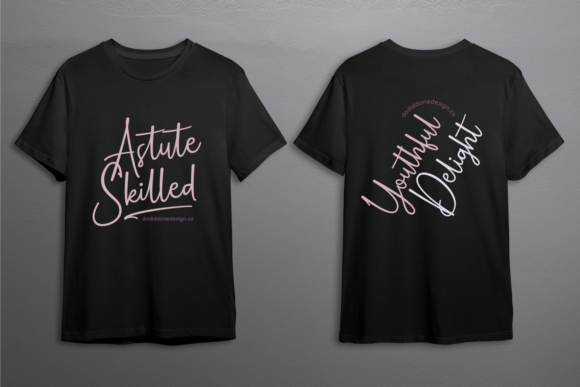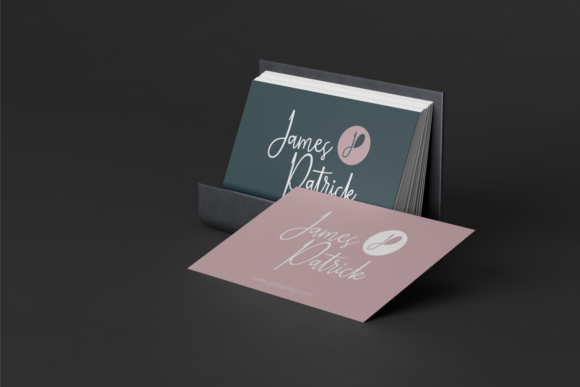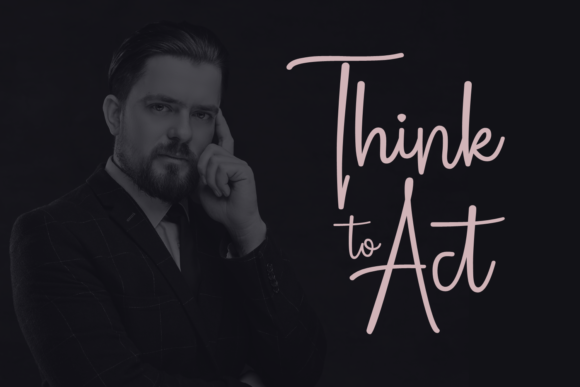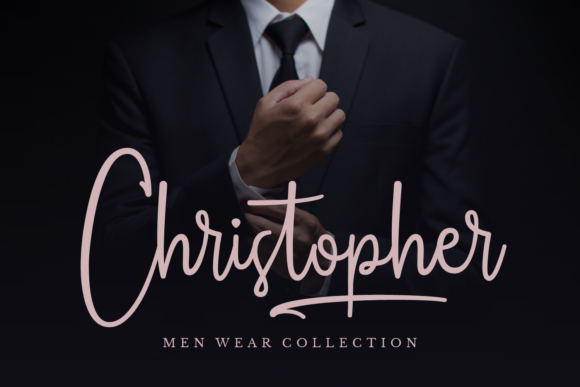
Introduction to Grettila Font
Grettila is an exquisite script font that will surprise you with its elegance and charm.
Cursive and balanced, this typeface is perfect for any item that needs to look impeccable .
Grettila Font offers exceptional quality and versatility, making it a valuable addition to your design toolkit. Whether you’re creating for personal projects or commercial use, Grettila Font delivers professional results.